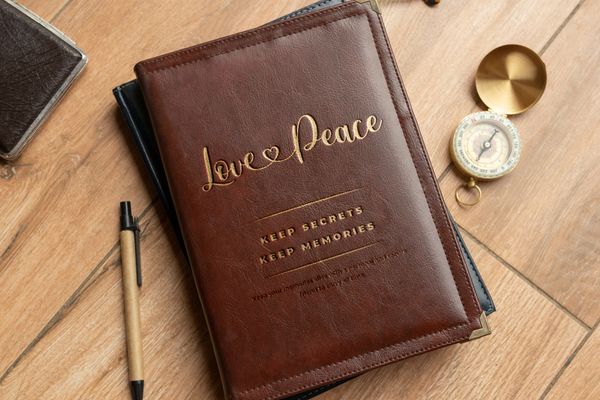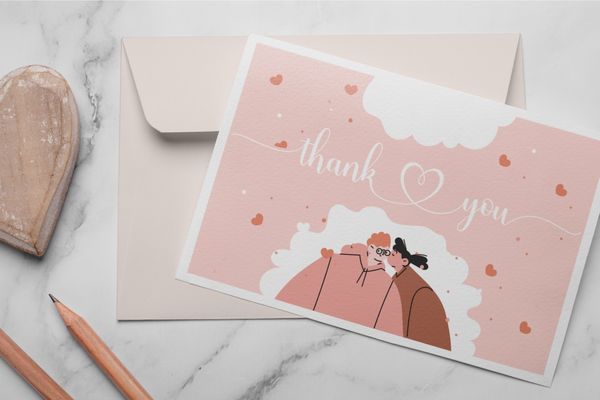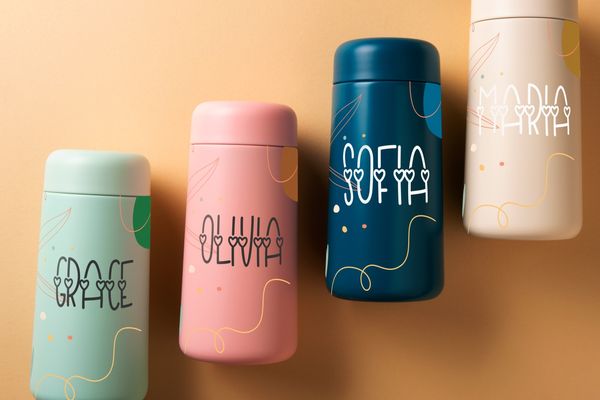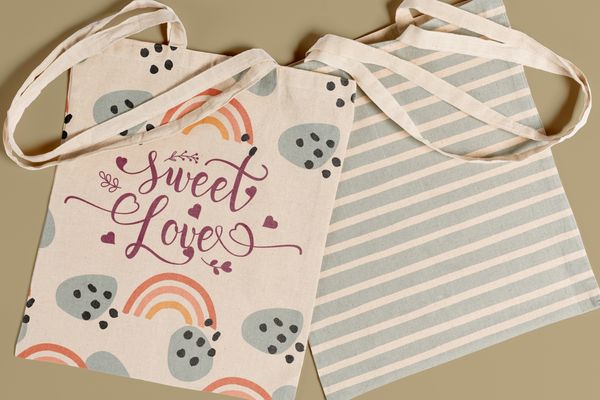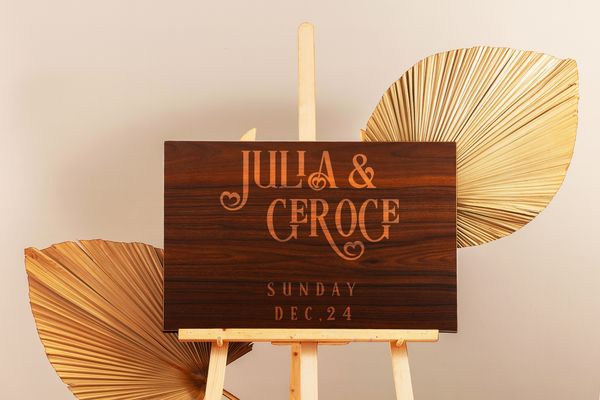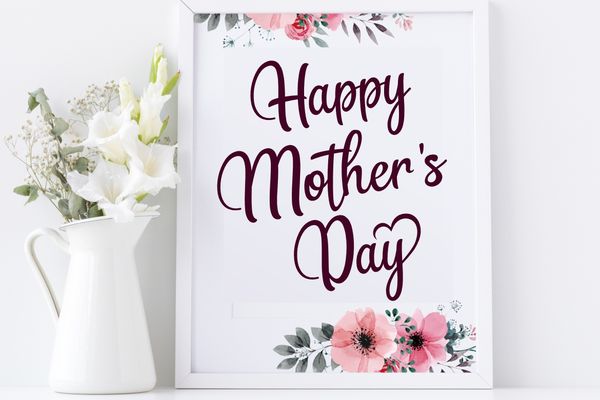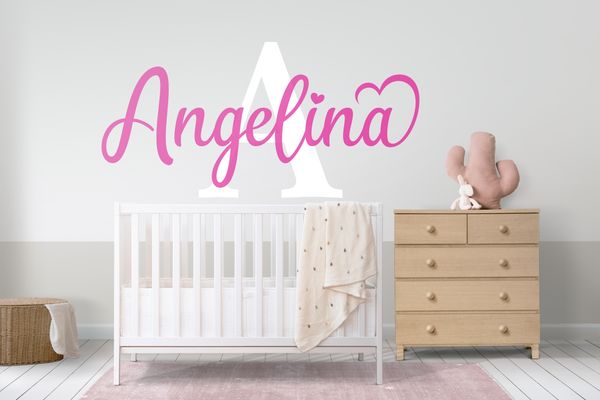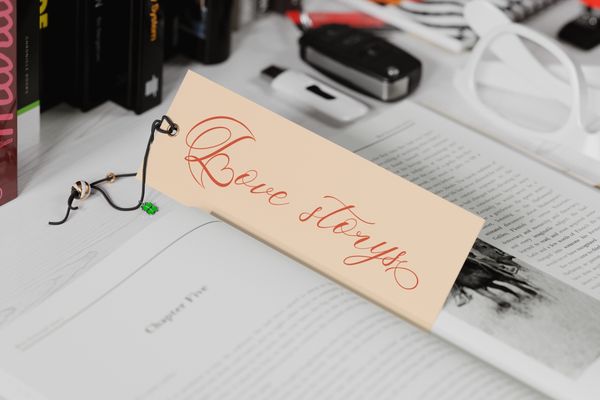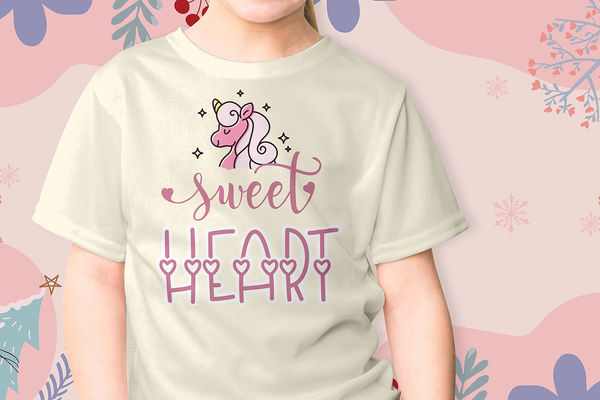
Cool Cricut Ideas 9 Creative Ways to Use Fonts with Heart
Cricut machine opens so many creative opportunities, including making personalized crafts. Using fonts with heart is a way to add a cute or beautiful touch to any design. Some of these fonts are playful and sweet, while others lean to the elegant side.
Whatever design ideas you have, make sure to use the fonts Cricut the right way. Follow these nine creative ideas to make beautiful designs with heart-adorned fonts and unleash your creativity.
1. Leather Journal Covers
Samantha Calligraphy Font!
Want your beloved journal book to be more beautiful and personalized? Use the Cricut machine to create a leather cover. With just faux leather sheets and different materials for the adornment (like iron sheets on vinyl), you can turn a regular book into a sophisticated journal.
Combine a display font with any icons that reflect you, like flowers, a moon, a zodiac sign, or a simple animal cutout. Fonts with heart are great choices if you like elegant, feminine, or cute cover designs. They also work well as adornments if you prefer simpler cover art.
We recommend fonts like Madelyn Heart of Samantha Calligraphy. Both have designs that resemble beautiful handwriting, perfect for decorating journal covers. Their thin strokes, narrow forms, and ribbon-like swashes add beautiful visual elements to your journal covers.
2. Personalized Greeting Cards
Madelyn Heart Font!
Amidst the popularity of online greetings, physical greeting cards can be special little gifts for people you care about. Making personalized greeting cards is easier with the Cricut machine and fonts pretty enough to match the occasion.
There are endless ideas for personalized greeting cards. You can make a fun birthday greeting card with bright colors or a classier one with muted shades. Or, you can make smaller cards to be sent with gifts, parcels, baskets, and party favors.
Use heart-decorated fonts that will add personal charm to your designs. Madelyn Heart, for example, is a fun option because it has long swashes and a lot of heart adornments. Wild Heart is also a good option because it has long swashes and heart shapes on the text and the swashes.
3. Water Bottle Stickers
Merisa Font!
Everyone is into reusable water bottles (or tumblers), so why not make Cricut stickers for them? Fonts with heart will instantly improve any water bottles and tumblers. You can even turn a regular bottle into a personalized gift with Cricut stickers on it.
All you need to do is buy an unadorned water bottle of any color and attach the Cricut designs. If you want to use font-based decorations, you can attach words of encouragement, inspiration, or affection. You can also use special Cricut material like glitter vinyl to make the design more attractive.
Fonts with swash are great options because their forms can “hug” the water bottles. You can use a romantic font like Red Rose font or a casual and cheerful one like Merisa font. The hearts will make your card more delightful to receive.
4. Tote Bags
Sweet Love Font!
Tote bags are simple but practical, and you can use them for a lot of activities. Why keep your regular bags unadorned if you can make them fancy? Cricut designs with fancy fonts are perfect for turning any bag into a fun, beautiful fashion accessory.
Use fonts with tail or any extra adornments to make your tote bag shine. If the font design is fancy enough, you can use it as the main decoration. For example, you can write your own nickname, words of encouragement, or your favorite slogan or song lyric.
Want to make a text-based decoration even more beautiful? Use Cricut materials such as glittery vinyl. They will make your bag more attractive without adding too many visual elements.
Sweat Love is a great font with heart to decorate a bag. It has illustration options of fonts in one pack, giving you more freedom in designing the words for your bag. The little heart accent and long swashes add the ornaments you need for a trendy, beautiful tote bag.
5. Text-based Wedding Decorations
Magic Love Font!
Use a Cricut machine and beautiful fonts to make wedding decorations. You can print the initials of the happy couple in wedding font on wooden panels or place them in beautiful frames. Use them to decorate a wedding venue as a casual but memorable adornment.
There are many ways to create wedding decorations using different styles. Depending on the couple’s personality, you can make a playful, cute, or sophisticated decoration. Add ornaments like ribbons, flowers, seashells, or dried leaves to make them more interesting.